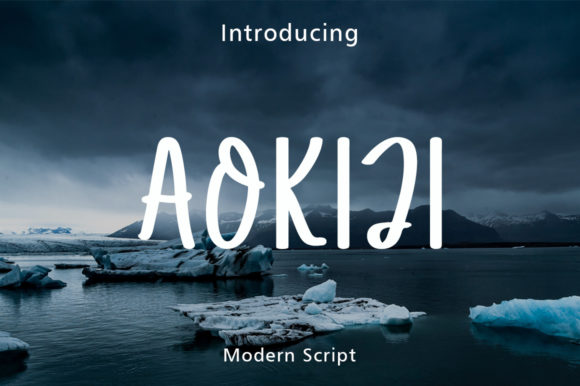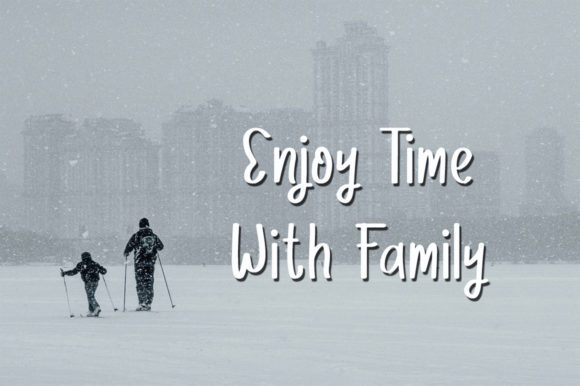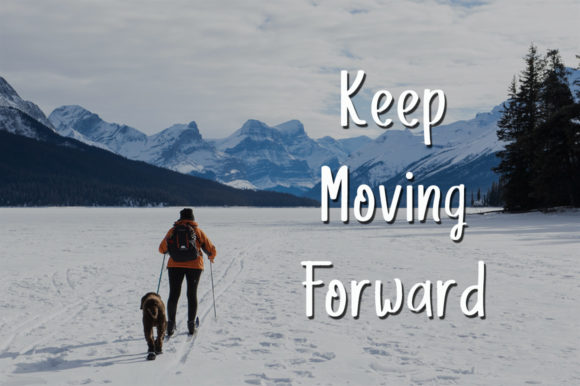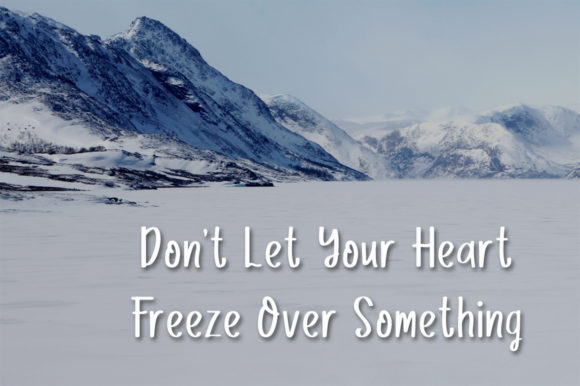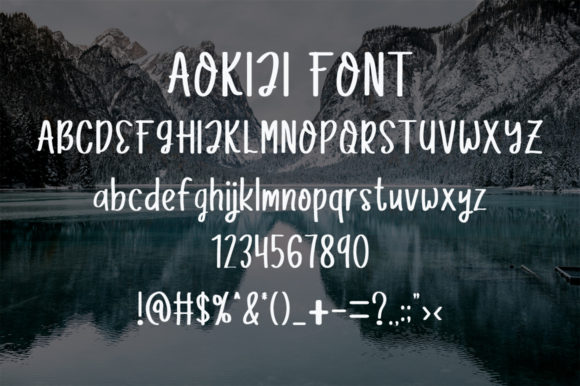
Aokiji Font
About Aokiji Font
Aokiji is a sweet and neat lettered handwritten font. Its natural and unique style makes it incredibly fitting to a large pool of designs. The only limit is your imagination!